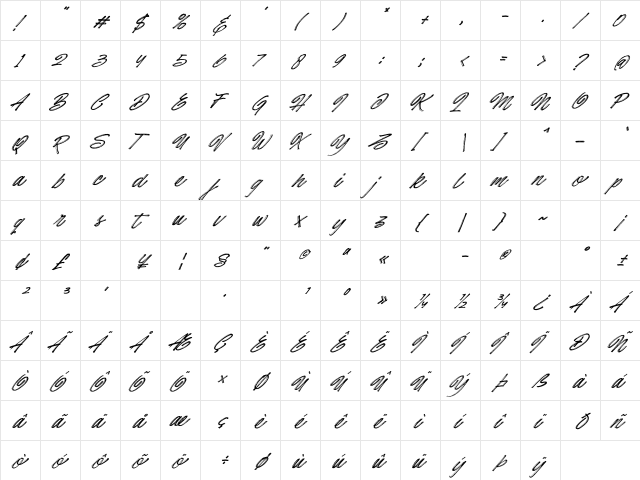
Hotte Brush Italic Regular
Design Context for Hotte Brush Italic Typeface
Hotte Brush Italic flows with the natural rhythm of handwritten lettering, making it ideal for designs that call for warmth and personal expression.
Font Pairing: Combine Hotte Brush Italic with a simple geometric sans for maximum contrast — the tension between flowing curves and clean structure is a classic typographic pairing.
Pro Tip: Use Hotte Brush Italic for short runs of text — names, titles, or taglines. Extended body copy in script faces tires the eye quickly.